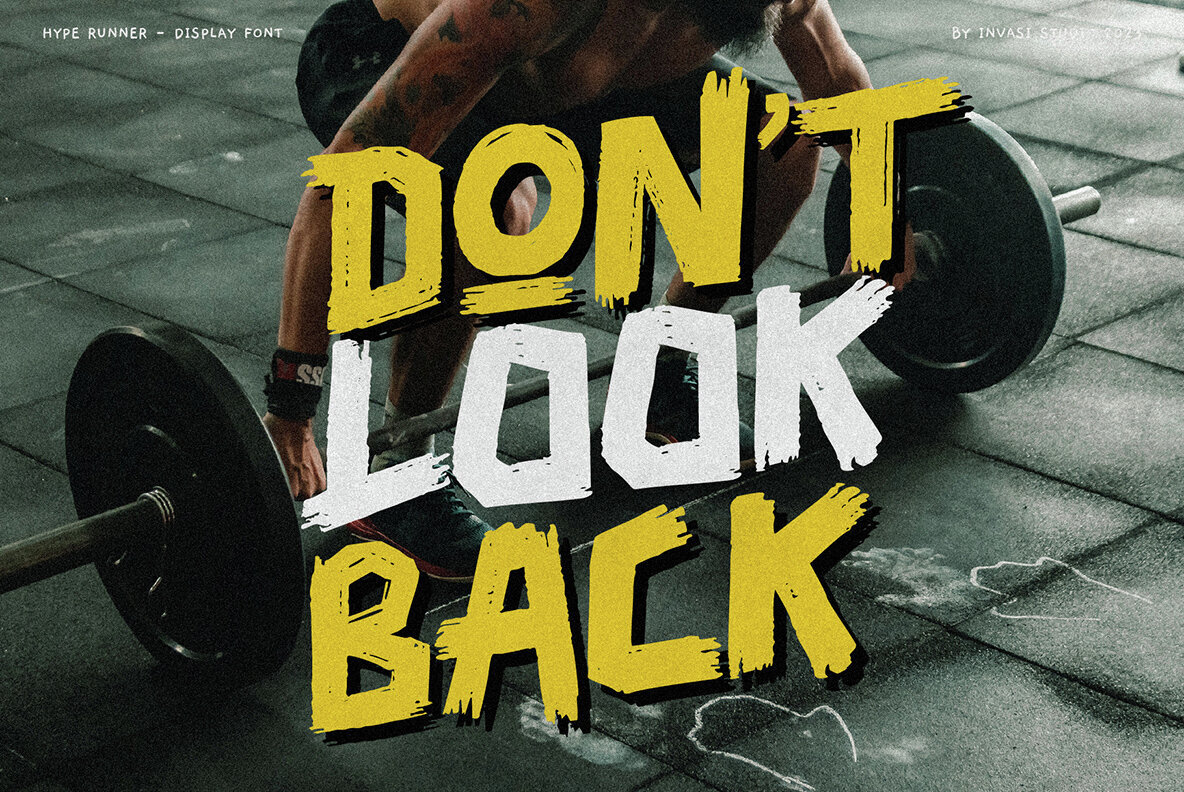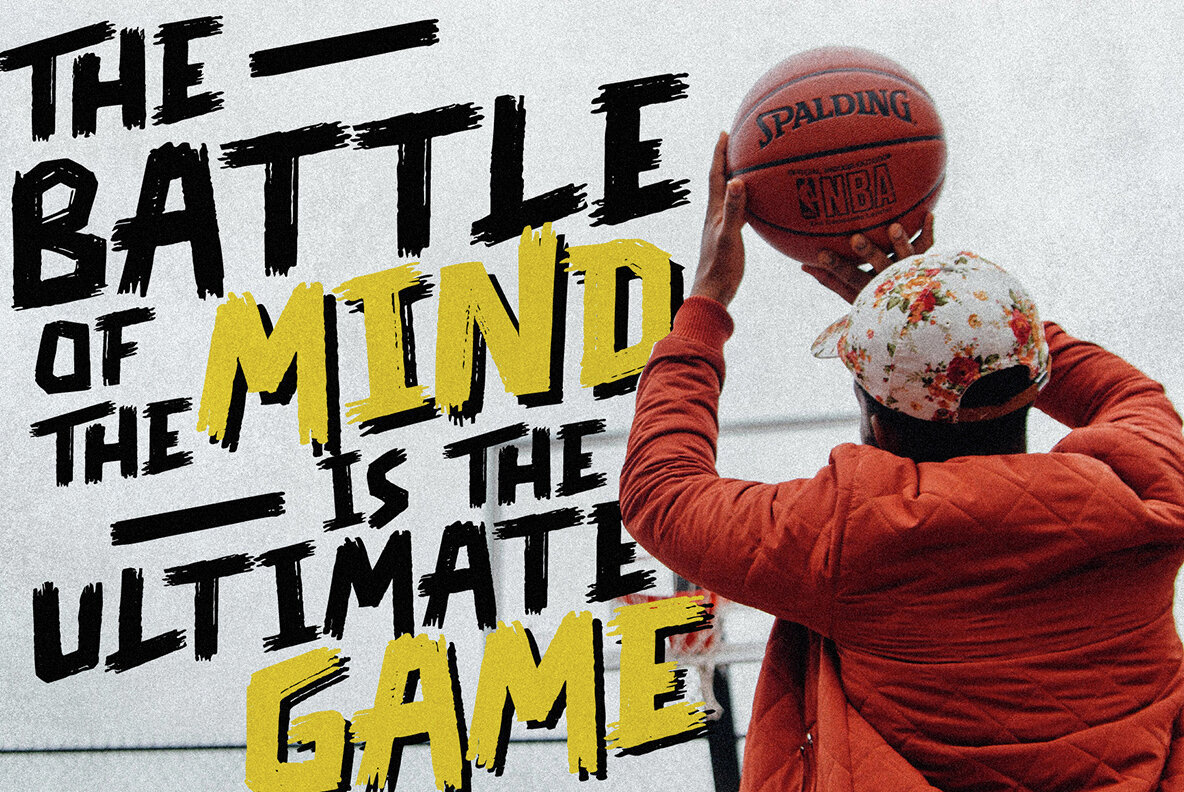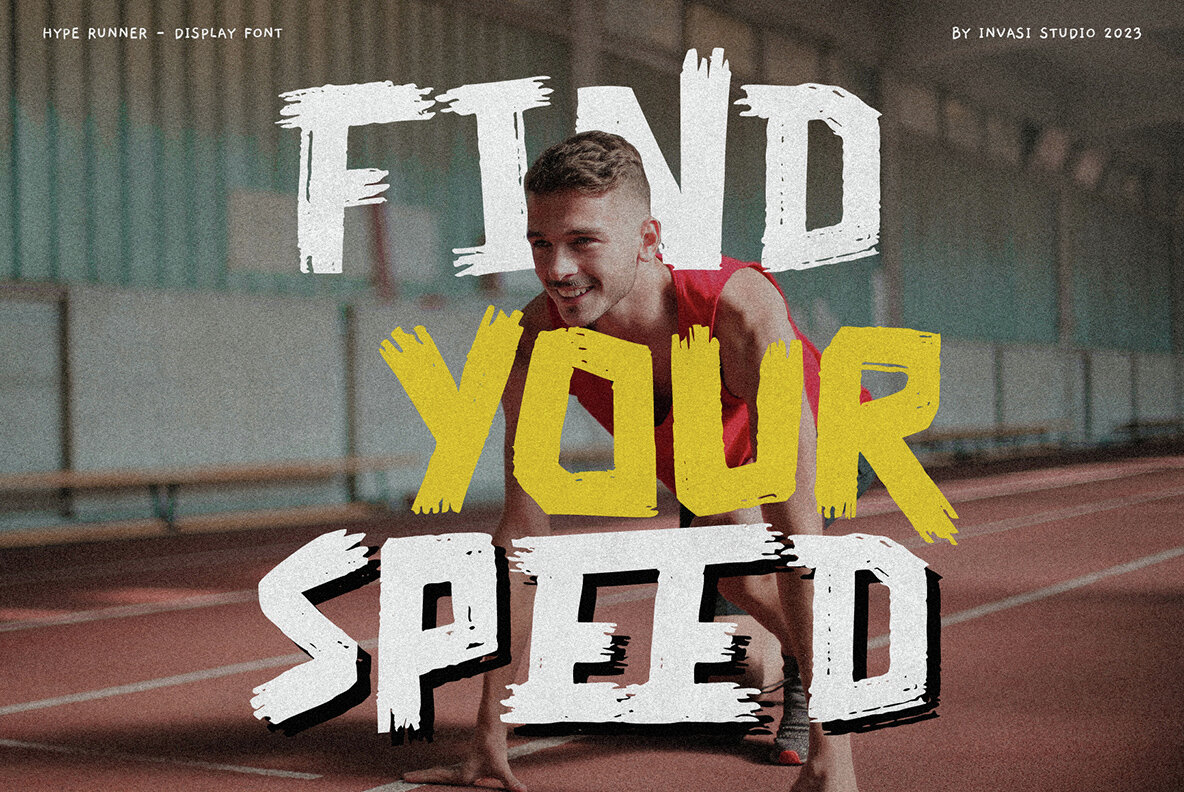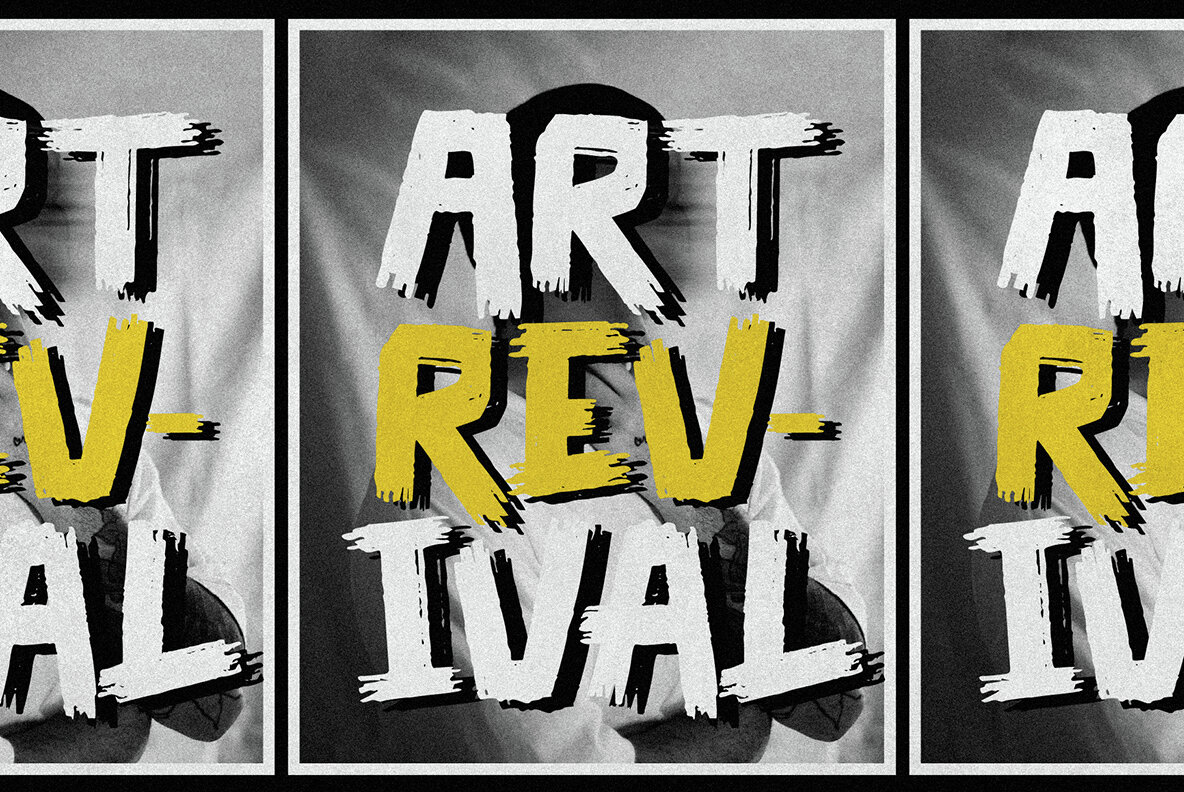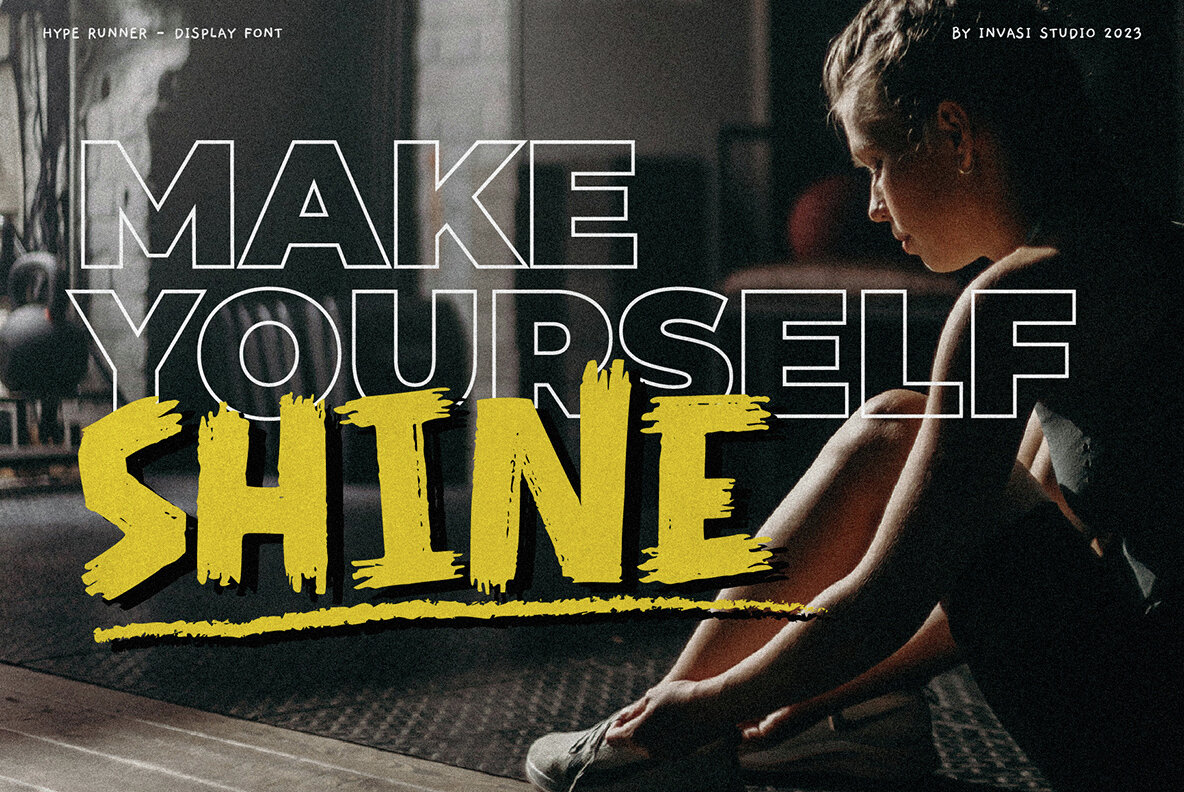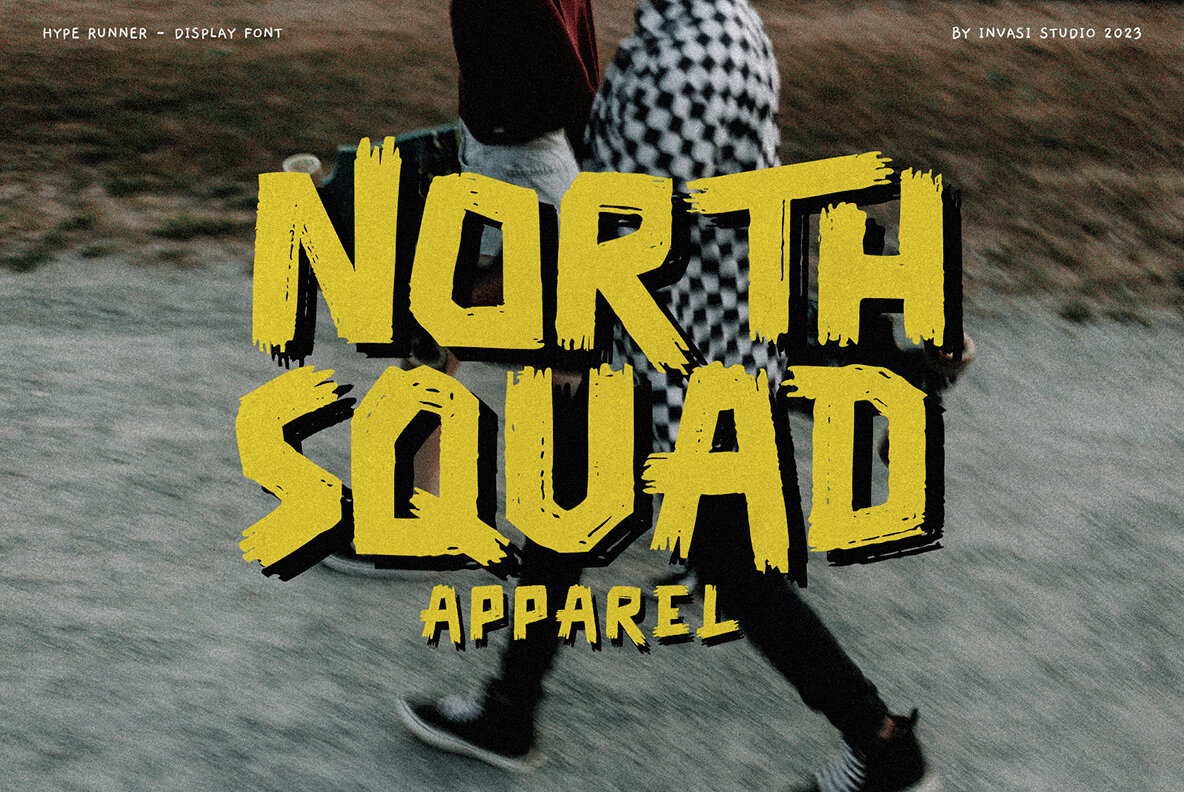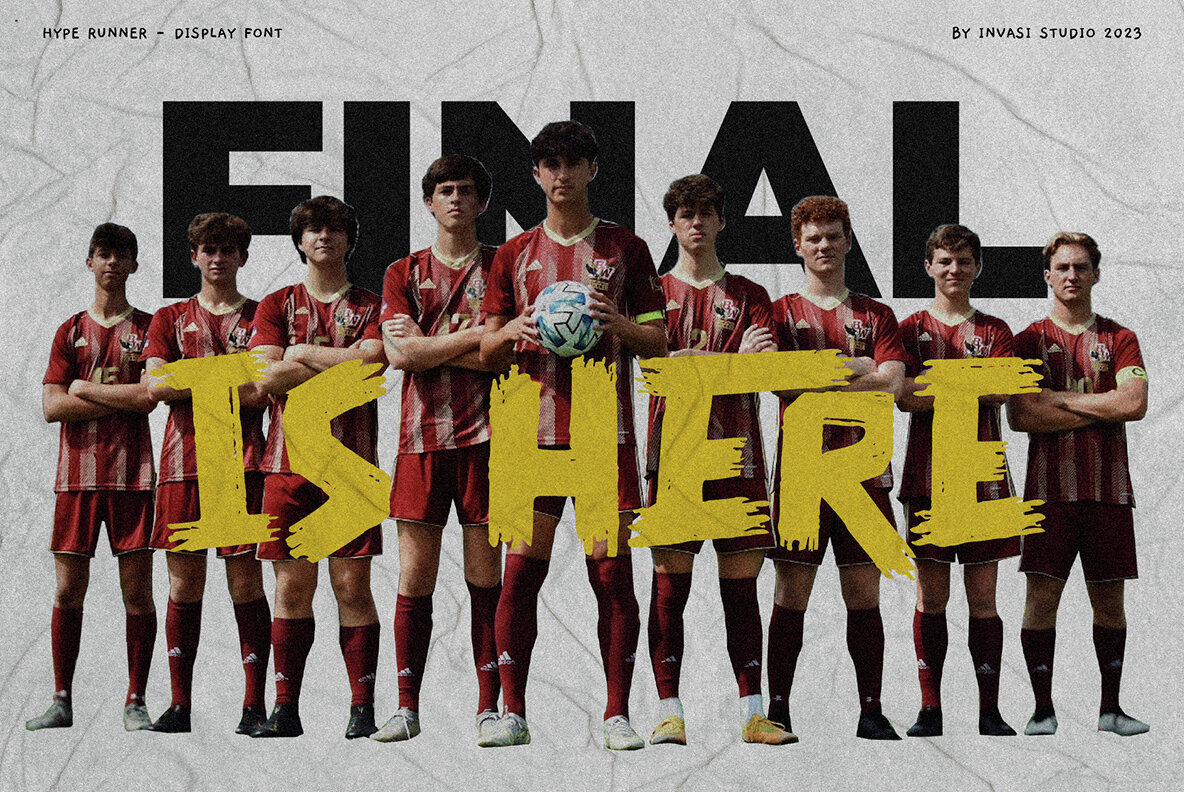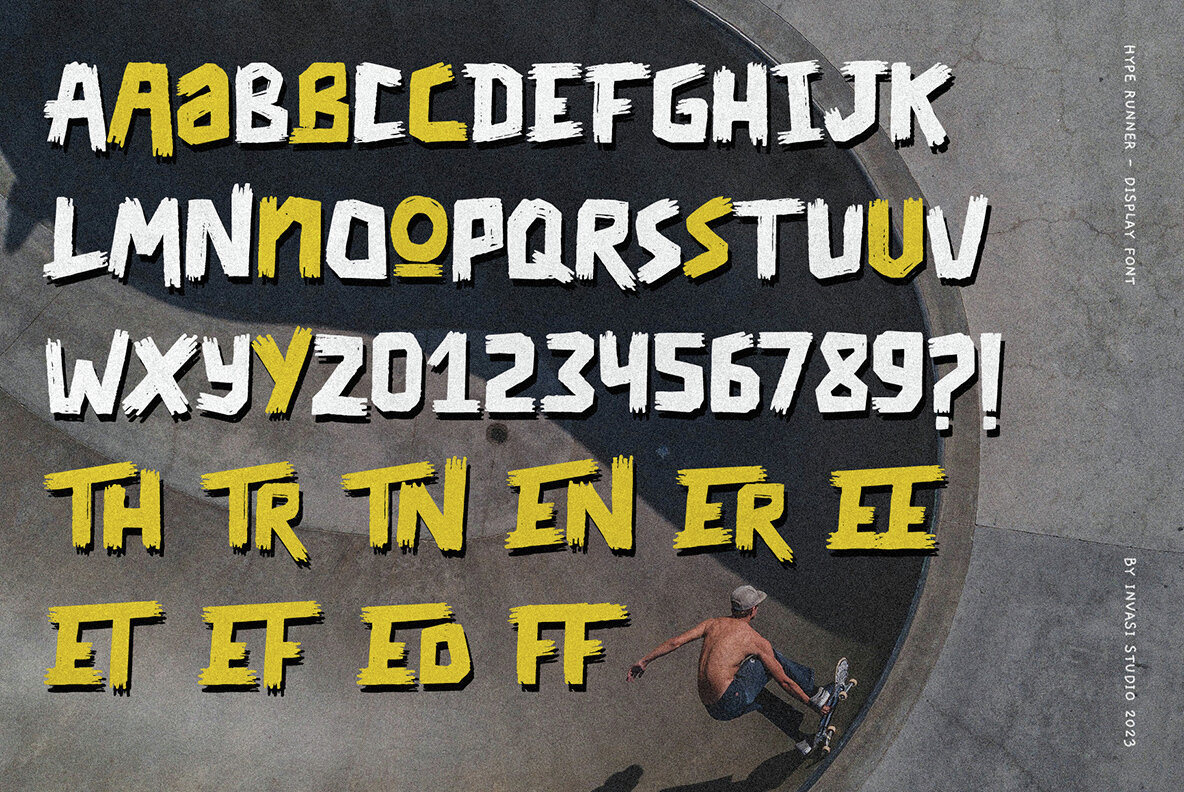
Hype Runner Font
Hype Runner Regular
Hype Runner is a bold and stylish brush font that is perfect for sports and anything that requires strength and power. With its unique style and edgy look, Hype Runner is ideal for a wide range of design projects, including headings, flyers, greeting cards, product packaging, book covers, printed quotes, logotypes, and album covers. This font features alternate glyphs, ligatures, and support for Latin Multilingual, giving you plenty of design options to create unique and eye-catching designs. Whether you're creating designs for sports or simply want a strong and impactful font, Hype Runner is a great choice.